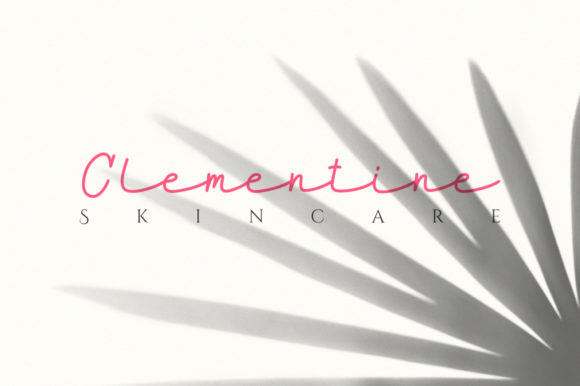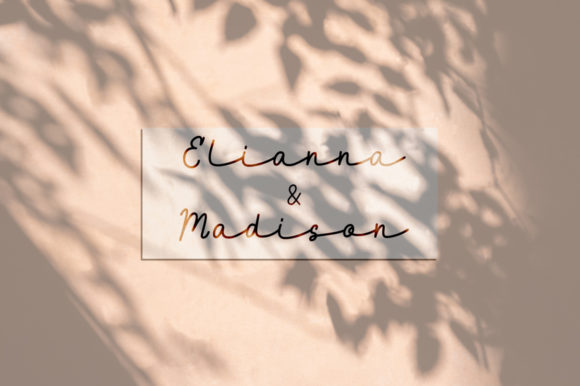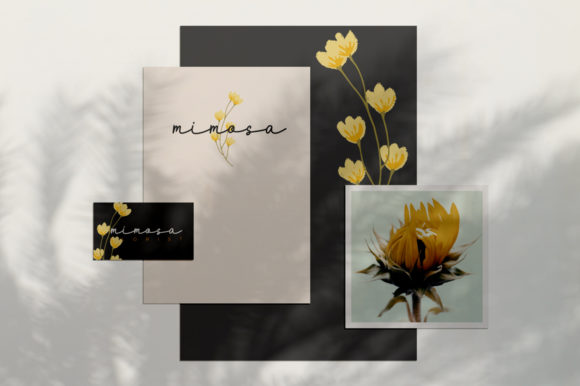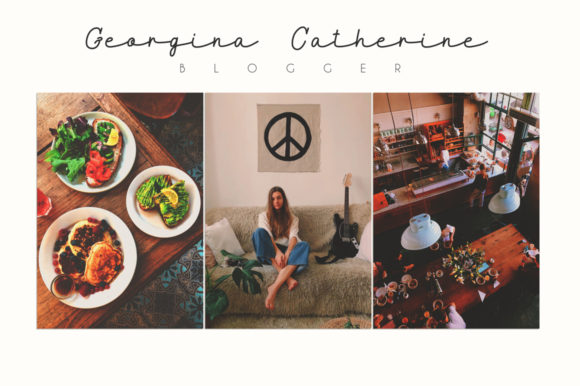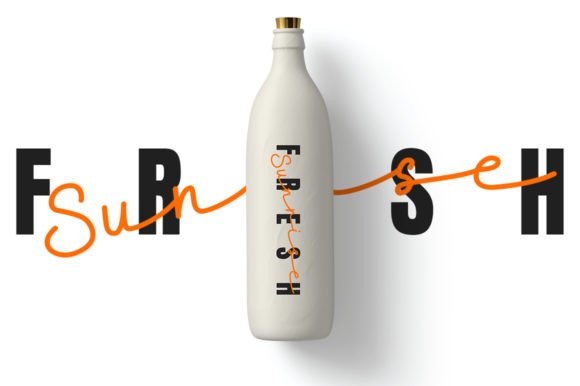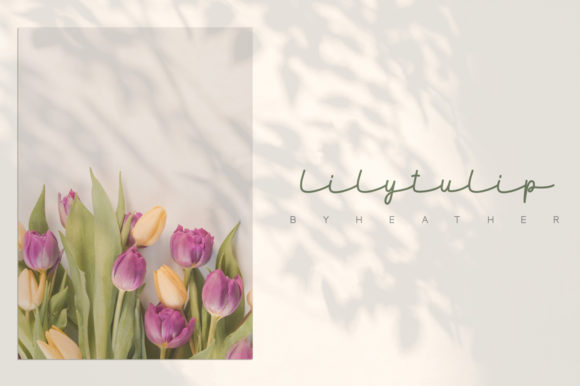
Introduction to Maidenhair Font
Maidenhair is a stunning mono-line script font with a beautiful feel.
Get inspired by its contemporary and organic charm .
Key Features of Maidenhair Font
Why Choose Maidenhair Font?
Maidenhair Font offers exceptional quality and versatility, making it a valuable addition to your design toolkit. Whether you’re creating for personal projects or commercial use, Maidenhair Font delivers professional results.